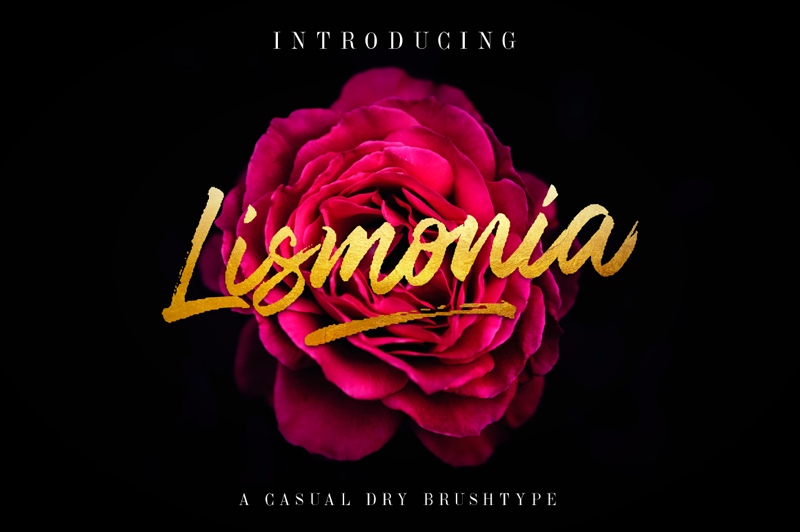
Preview and download Lismonia Font. Created by Adhitya Nugroho in Script Brush styles with Demo license.
Introducing Lismonia, a casual handwritten brush font with quick dry strokes and a signature style. Lismonia great to use for logos, inspirational quotes, t-shirt graphics, typography art, apparel, labels, posters, business cards, stylized wedding invitations, prints, signs, book cover designs headlines, titles, etc. For full license, can be purchased here - https://crmrkt.com/v96xMo |